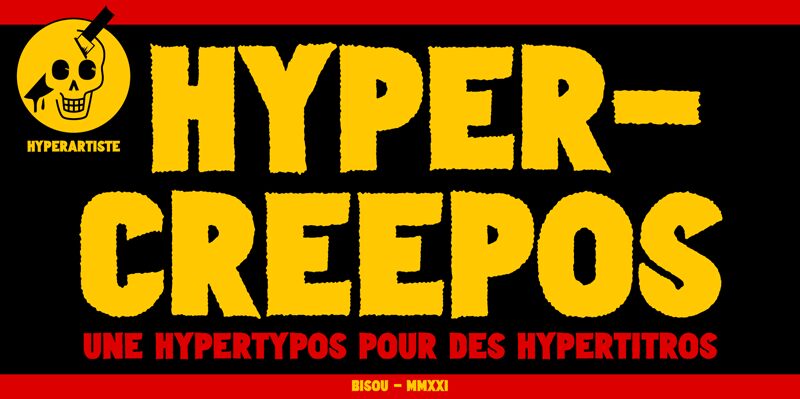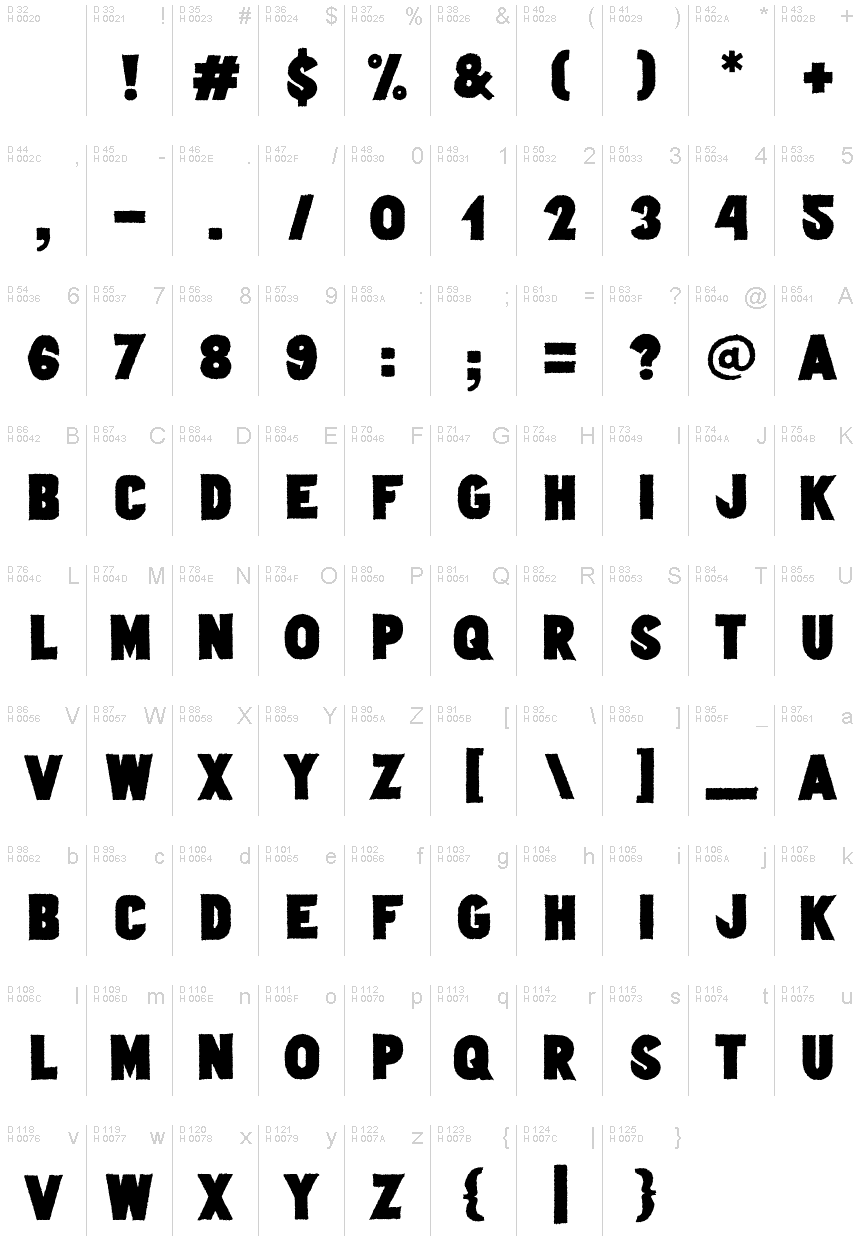
Hypercreepos
Hypercreepos, conceived by the talented Bisou, is a hauntingly captivating display font that is sure to send shivers down your spine.
Its extra-bold weight and semi-condensed width create an imposing presence, making it perfect for horror movie posters and dark-themed designs. The eroded texture adds a sense of decay and macabre atmosphere, making Hypercreepos an ideal choice for haunted house flyers, Halloween party invitations, and gothic-inspired album covers.
Unleash your creativity with this bone-chilling font that will leave a lasting impression on anyone who dares to encounter it.